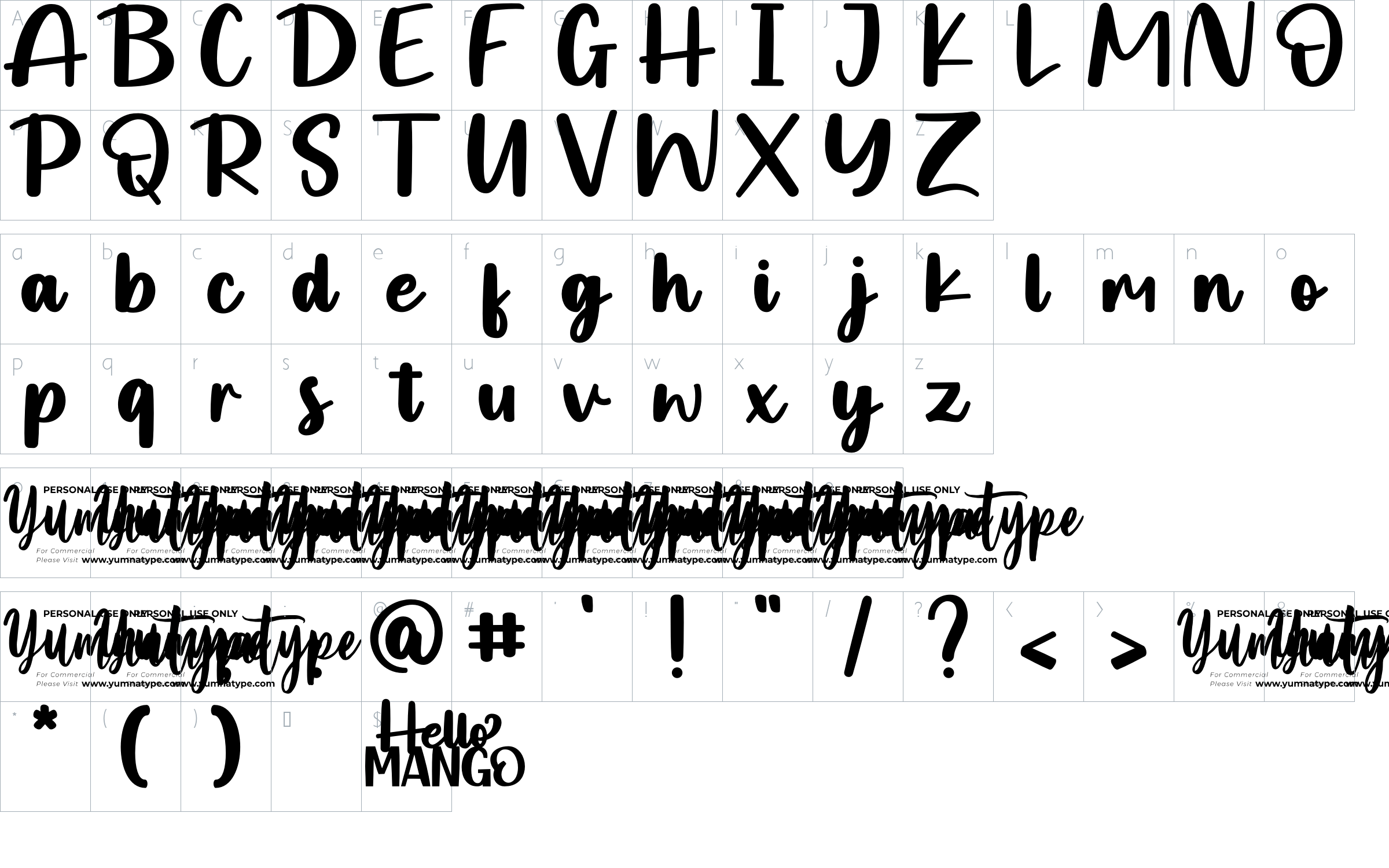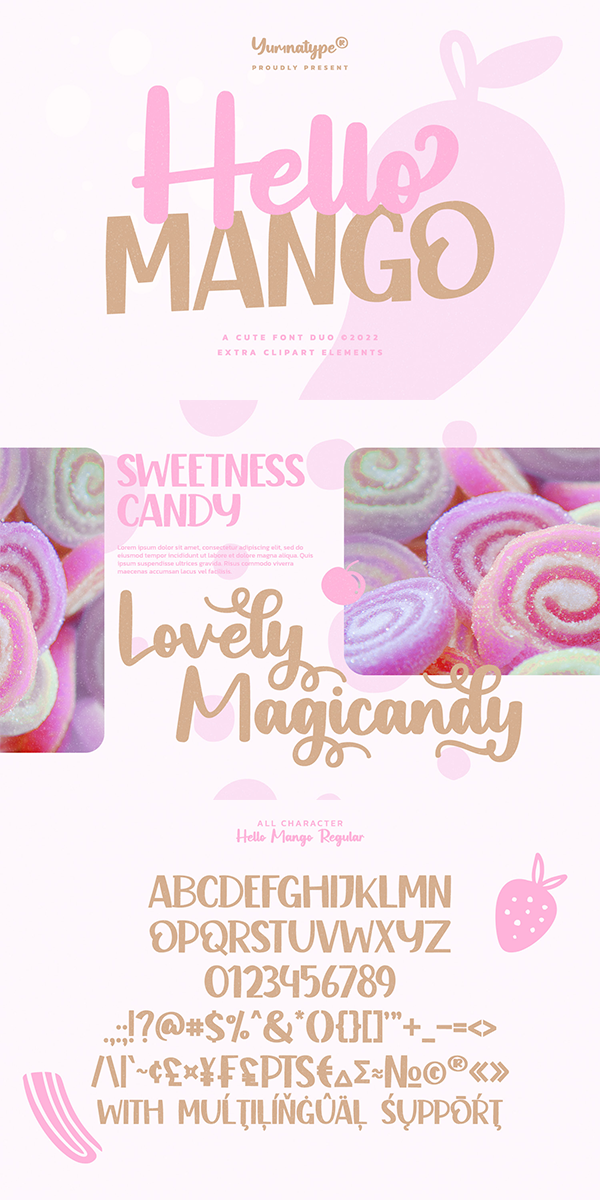
Hello Mango Font
About Hello Mango
Hello Mango knows how to make your designs go from good to be ultra good.
It is harmonious uppercase display and script font duo. The display font is beautifully designed and add a distinctive touch wherever they are used. On the other hand, the script style expresses elegant and modern look. In this package, you can also get 15 illustrations as special extra.
-Uppercase and lowercase
This font would looks great on your branding, logos, social media quotes, stickers, posters, wall art, merchandise, social media, and many more. Get more inspiration about how to use it by seeing the font preview.